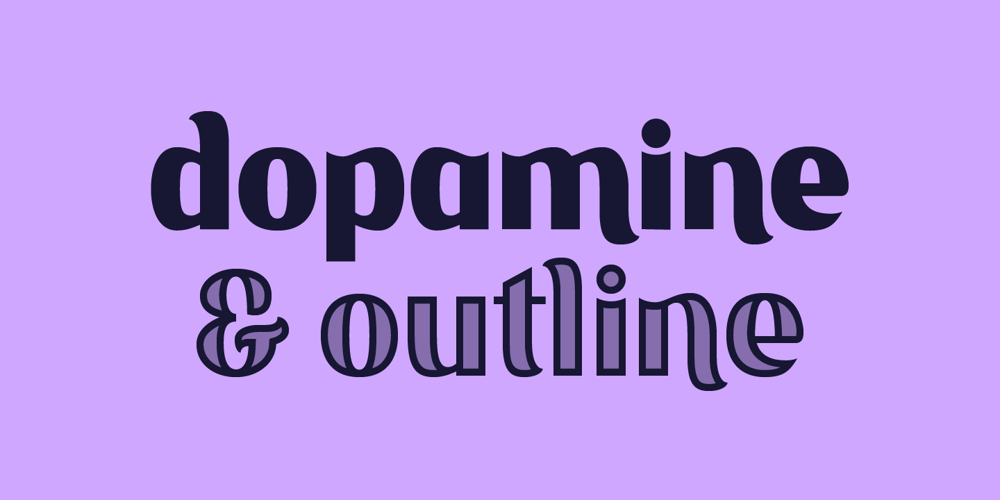
Dopamine Font Family was designed by Luke Thompson and published by Luke Thompson. Dopamine contains 2 styles and family package options. Dopamine is a friendly, flowing sans serif typeface. It works best for large headlines, particularly in packaging or editorial projects. Its most interesting feature is the flowing line across the top of many of the characters, creating smooth waves from one to another.